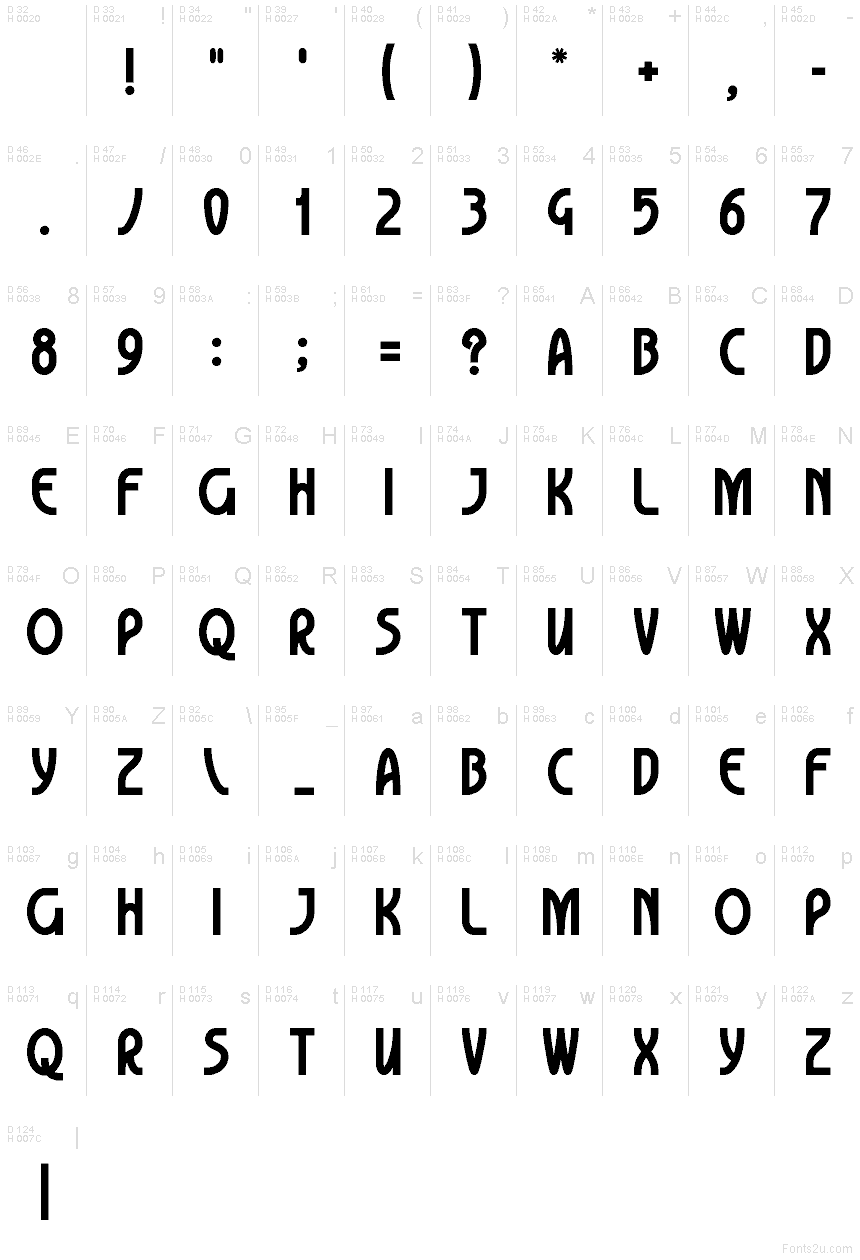
Lumierepolis Bold
Lumierepolis Bold font by GGBotNet is a free retro display typeface that looks like it was bent from glowing tubing and snapped into clean, confident letters. Part of the Lumierepolis family, its strokes curve into rounded corners and looped counters, giving every word a sleek, neon‑sign energy without feeling kitschy. The tight rhythm and even weight make it punchy and legible, so your titles feel both futuristic and a little nostalgic at the same time.
Using Lumierepolis Bold, headlines and wordmarks instantly feel like they belong on a sci‑fi marquee, synthwave poster, or glitchy game interface. This free font also works beautifully for event branding, music cover art, streaming overlays, and bold website hero text that needs strong character in a few words. Try pairing Lumierepolis Bold with a simple geometric sans in smaller body sizes to keep the glow of the logo or headline in the spotlight.